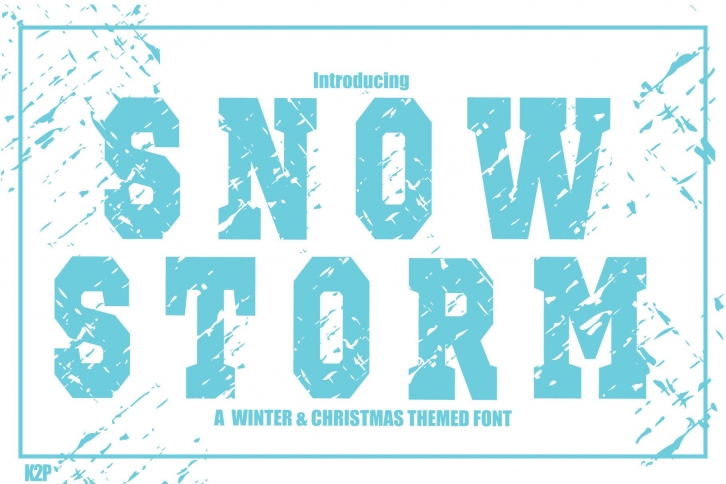
Snow Storm is a thick-lettered and unique display font. It is perfectly suitable for any winter project, or crafty idea! Add it confidently to your favorite creations and let yourself be amazed by the outcome generated.Â